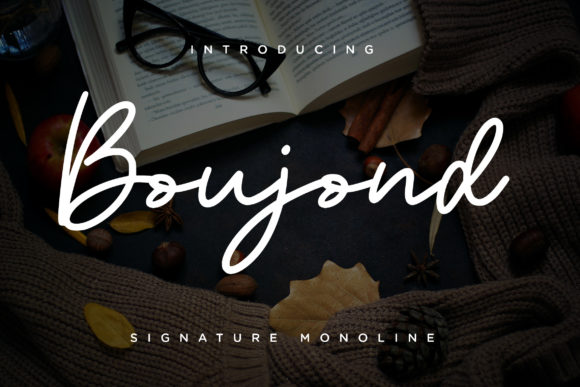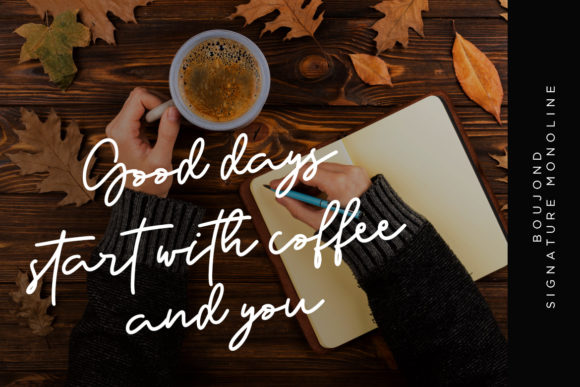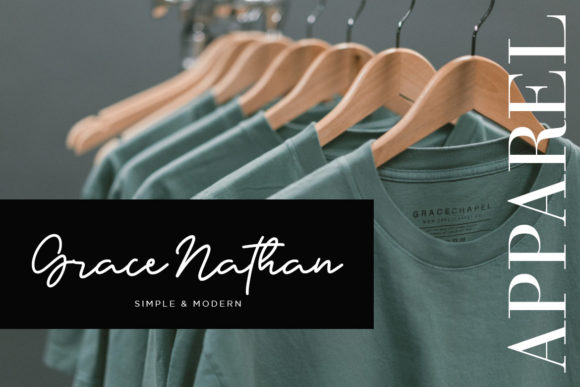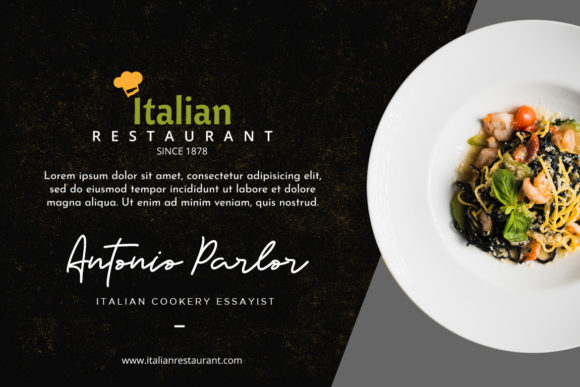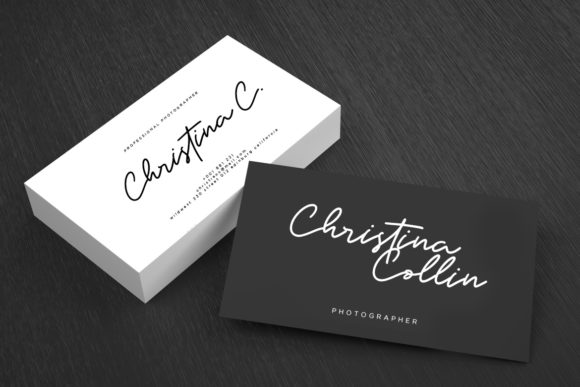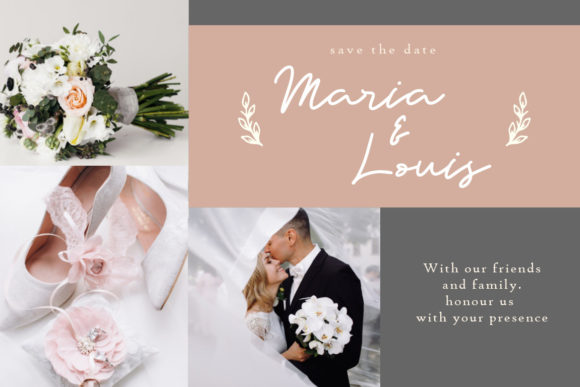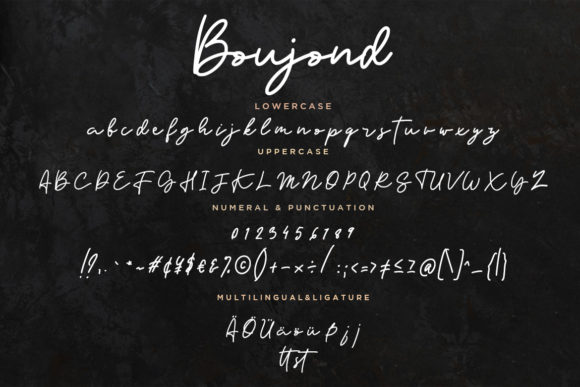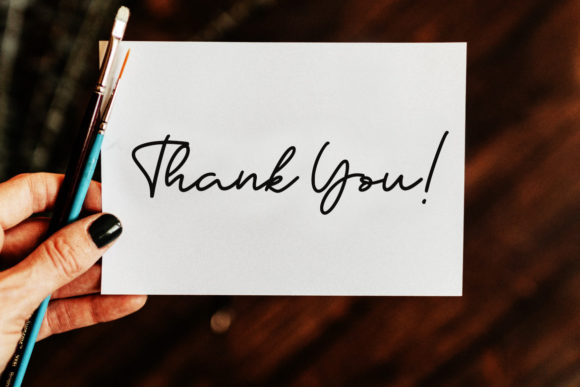
HomeScript FontsBoujond Font Script Fonts Boujond Font FacebookXPinterestWhatsApp Boujond Font Poster 2 Boujond Font Poster 3 Boujond Font Poster 4 Boujond Font Poster 5 Boujond Font Poster 6 Boujond Font Poster 7 Boujond Font Poster 8 About Boujond Font Boujond is a stunning script font with a unique style. It will add an authentic vibe to any design idea! DOWNLOAD ON CREATIVE FABRICAThis font is sold and delivered by Creative Fabrica. Font Canyon may earn a commission if you buy through this link. People also explored Aaux Next Wide Christnolan Font Make History Font Proofreader JNL Font Waterlow Font Super Caramel Font Crossout Font Unique Horn Font Greaner Font 434 0 TagsBoujond Font Previous articleJasmine Script FontNext articleGondala Font LEAVE A REPLY Cancel reply Comment: Please enter your comment! Name:* Please enter your name here Email:* You have entered an incorrect email address! Please enter your email address here Website: Save my name, email, and website in this browser for the next time I comment. Personal Use Free Valentines Day Personal Use Free Read more about this font Kidly Personal Use Free Read more about this font Free Personal Use Free Read more about this font Beattingvile Personal Use Free Read more about this font BLOG Using Fonts in Digital Marketing: Tips to Strengthen Your Brand Identity In the realm of digital marketing, every visual element plays a crucial role in shaping a brand's identity, and fonts are no exception. The... How to Cut Any Font on Cricut: Convert a Font to SVG (Free) Best Fonts for YouTube Videos: Make Your Thumbnails Stand Out The 10 Best Handwriting Fonts to Add Personality to Your Designs